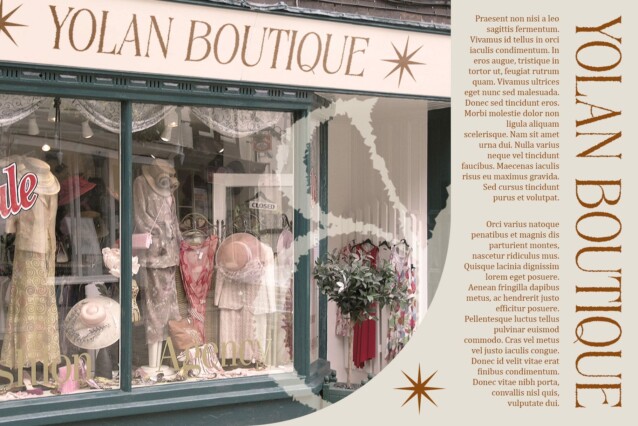
Revenika Rough Font
Revenika Rough Font is an elegant modern serif font that exudes beauty with a touch of roughness. Its unique design adds a modern edge to your projects, ensuring they stand out with a blend of sophistication and raw charm.
Ideal for Displays
Designed to make an impact, Revenika Rough is perfect for headlines, banners, and other display purposes. Its elegant yet rough aesthetic ensures that your message is both seen and remembered.